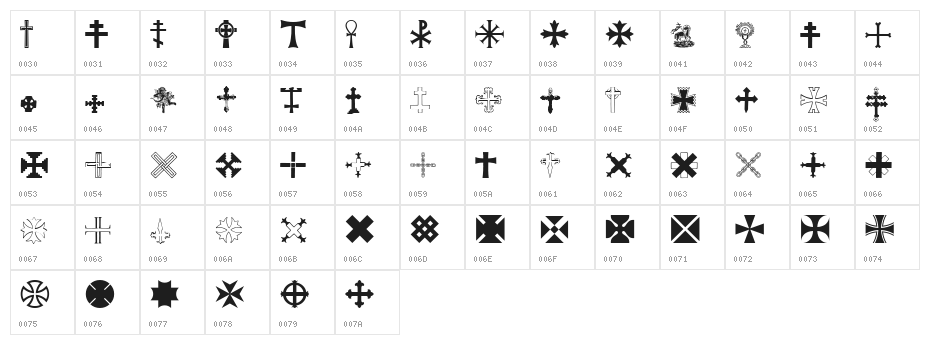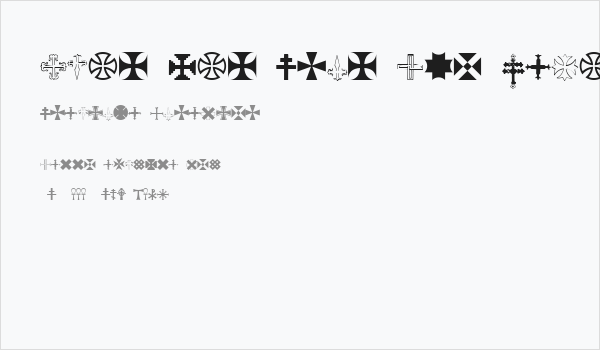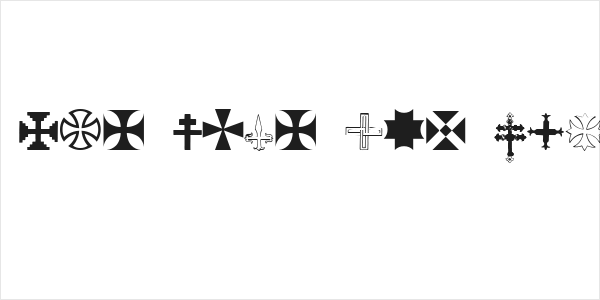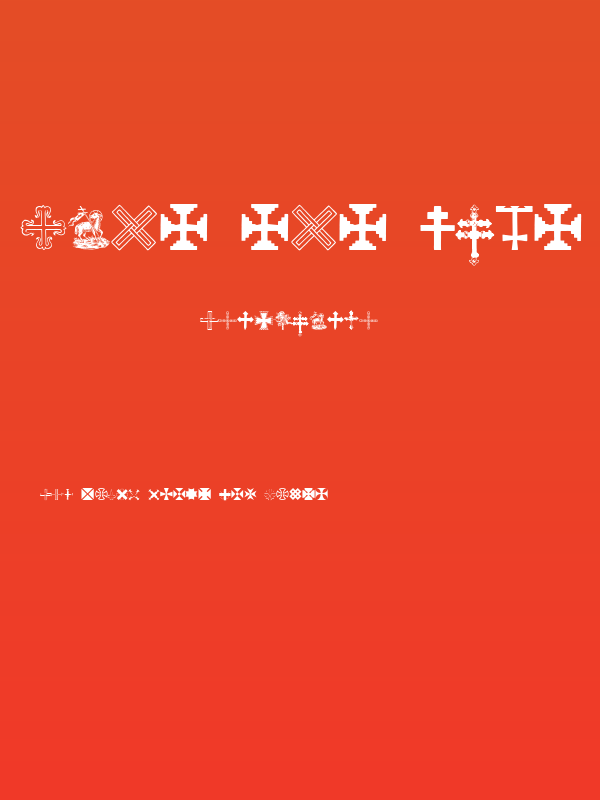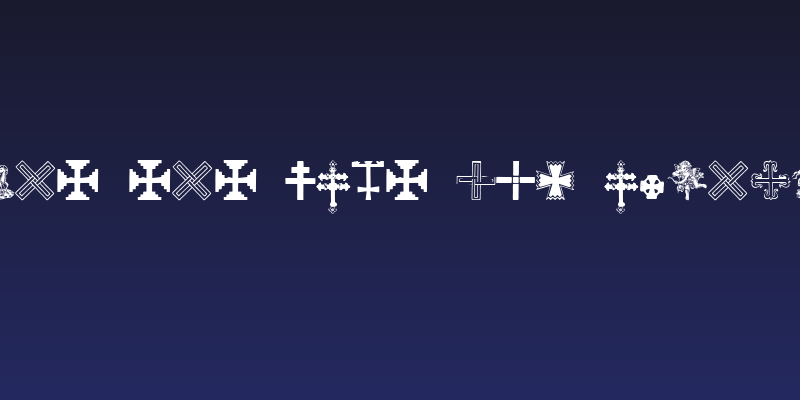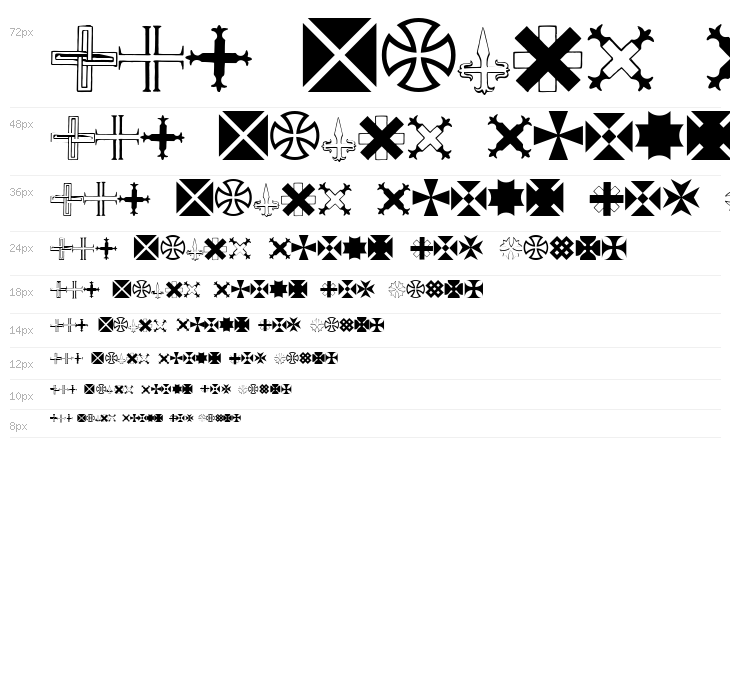
Laus Sus Cris Two Regular Font
Laus Sus Cris Two Regular Description
A decorative symbol font featuring a wide variety of cross designs, religious motifs, and ornamental elements. The glyphs are highly detailed, ranging from simple geometric crosses to intricate, illustrative symbols, with both filled and outlined styles.
| Overall Style | Decorative, Ornamental, Thematic |
| Use Case | Icons, Decorative elements, Themed headings |
| Proposed Projects | Religious event materials, church bulletins, themed posters, graphic design accents, historical or spiritual publications. |